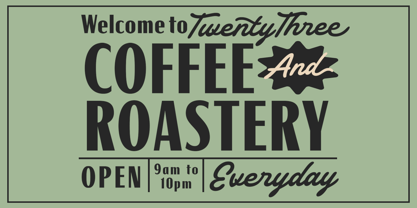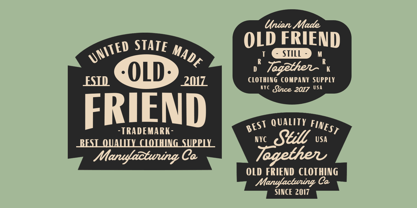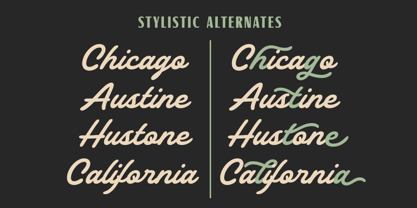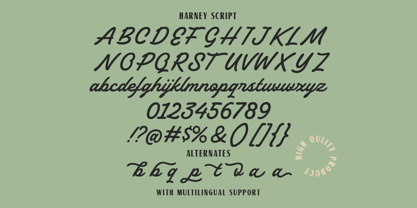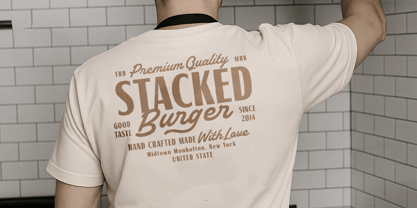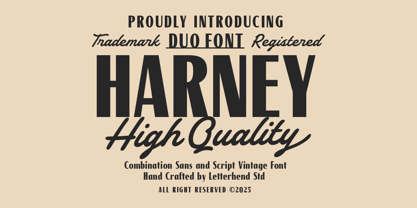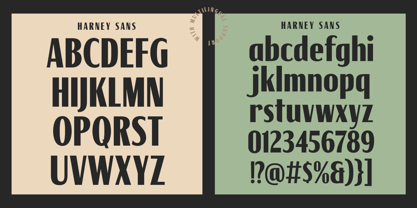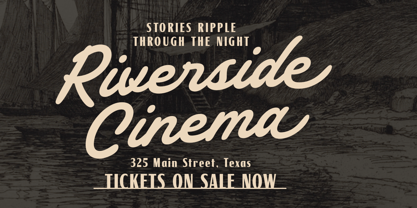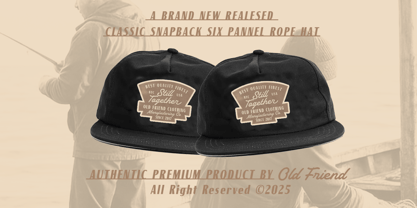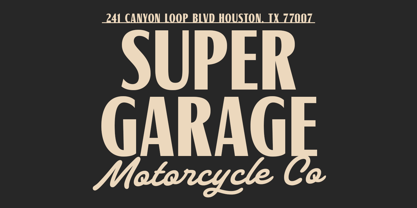
Harney
by Letterhend
The Harney Font Family was designed by Hendry Juanda and published by Letterhend. Harney contains 2 styles and family package options. More about this family
Harney feels lovingly handcrafted, pairing sturdy sans shapes with a script that flows like hand-painted signage. This duo font feels timeless yet stylish, bring a sense of authenticity and human touch—perfect for artisanal branding, vintage goods, and heritage-inspired layouts. Features : Uppercase & lowercase Numbers and punctuation Alternates & Ligatures Multilingual Support